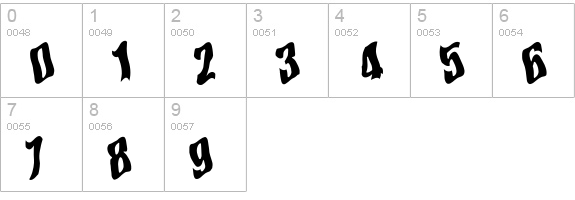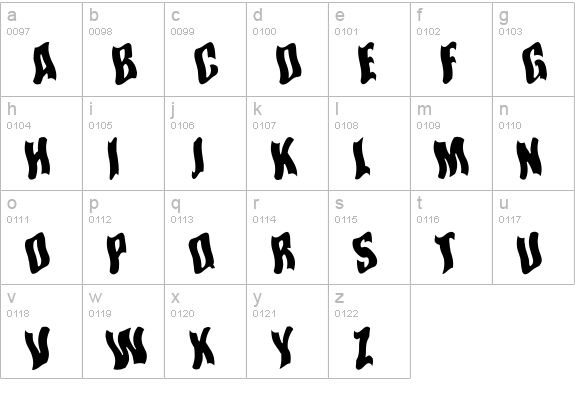
SomewhereInSpace Font Details
Introducing SomewhereInSpace, a captivating and futuristic font that will transport you to the outer reaches of the galaxy. With its sleek and modern design, this font embodies the essence of space exploration and discovery. SomewhereInSpace is not just any ordinary font - it is a work of art meticulously crafted to evoke a sense of wonder and awe. Its bold and sharp letterforms are reminiscent of the celestial bodies that dot the vastness of the cosmos, giving your designs a cosmic touch that is truly out of this world. But what sets SomewhereInSpace apart is not just its stunning aesthetics, but also its accessibility. We believe that creativity should know no bounds, which is why SomewhereInSpace is freely available to download at FontsMarket.com. Yes, that's right - you can harness the power of this extraordinary font without any cost. Whether you're a graphic designer looking to add a touch of interstellar magic to your projects, or a content creator seeking to captivate your audience with something truly unique, SomewhereInSpace is the perfect choice. Its versatility allows it to shine in various design applications, from logos and branding, to headlines and social media posts. So why wait? Embark on a journey to the cosmos with SomewhereInSpace and let your creativity soar to new heights. Download this remarkable font today at FontsMarket.com and unleash the limitless possibilities that await you in the vast expanse of space.